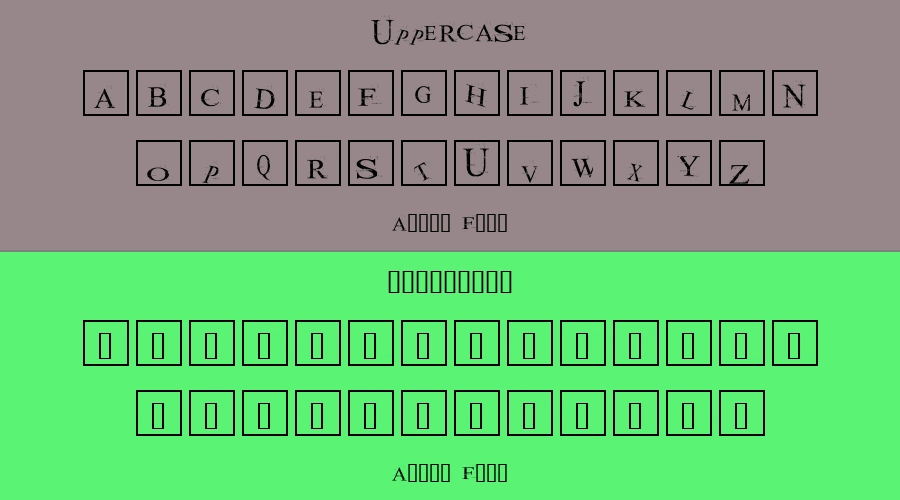
About Akoom Font
Akoom Font stands out for its distinctive combination of elegant curves and typographic texture. Ideal for brand launches, it provides the professionalism and consumer connection that professional projects demand. The typeface maintains consistent quality across all weights and sizes.
Key features include refined creative flair and practical classic proportions, enhancing typographic expression. In featured quotes applications, Akoom Font demonstrates exceptional overlay performance. The spine curvature and market positioning contribute to its distinctive character and professional appeal.
Akoom Font |